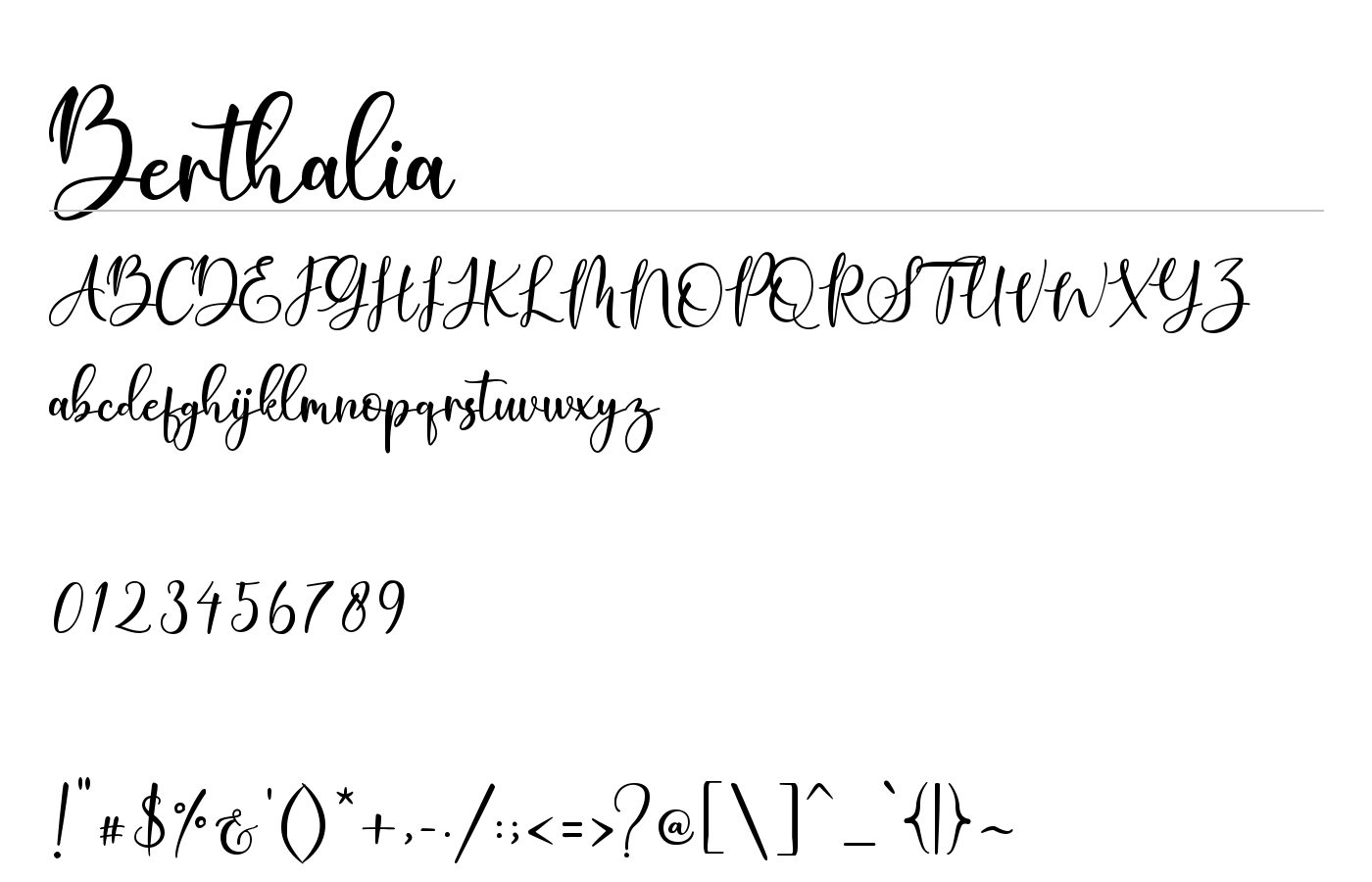
Berthalia is a graceful script font with a flowing, handwritten style that feels both elegant and charming. Its smooth, medium-weight strokes and playful letterforms make it perfect for adding a personal, sophisticated touch to invitations, branding, and decorative headlines. This font’s delicate curves and refined character shapes give it a warm, inviting personality ideal for fashion, beauty, and creative projects.
Berthalia Font
About Berthalia Font
| Font family | Berthalia Font |
| Designer | Creaditive 2021 |